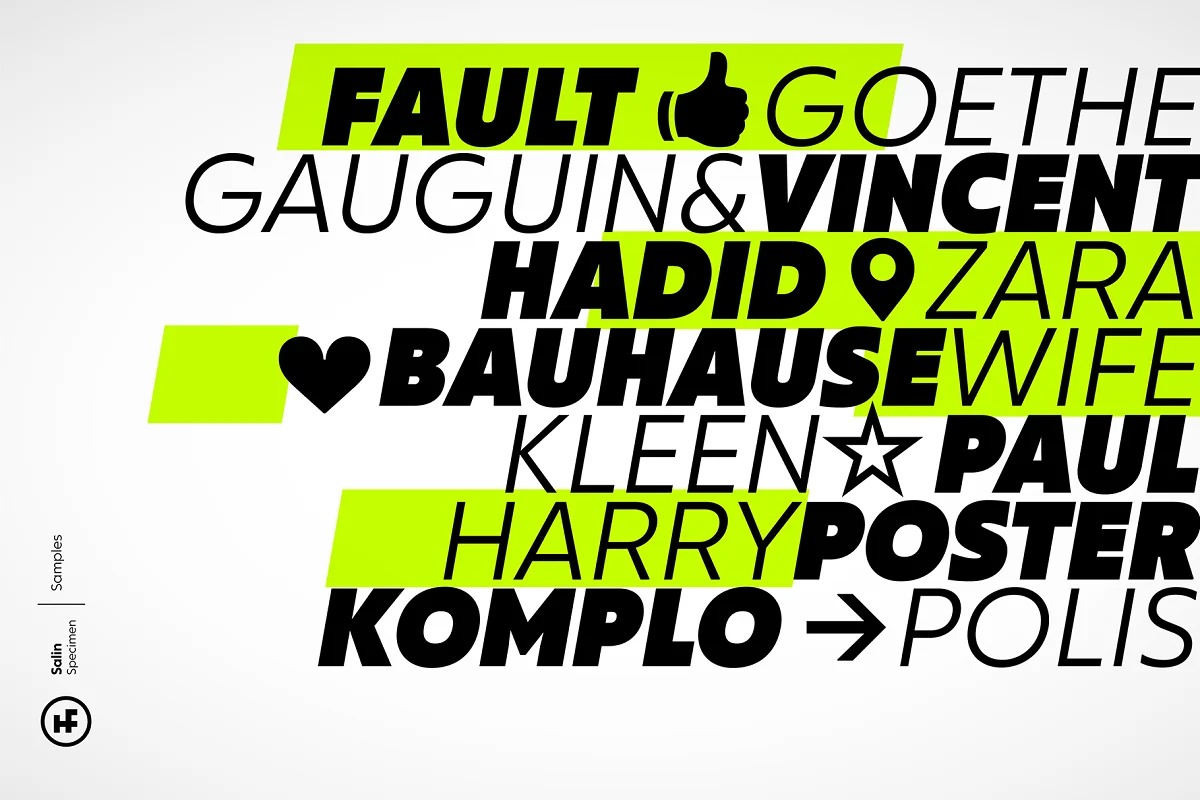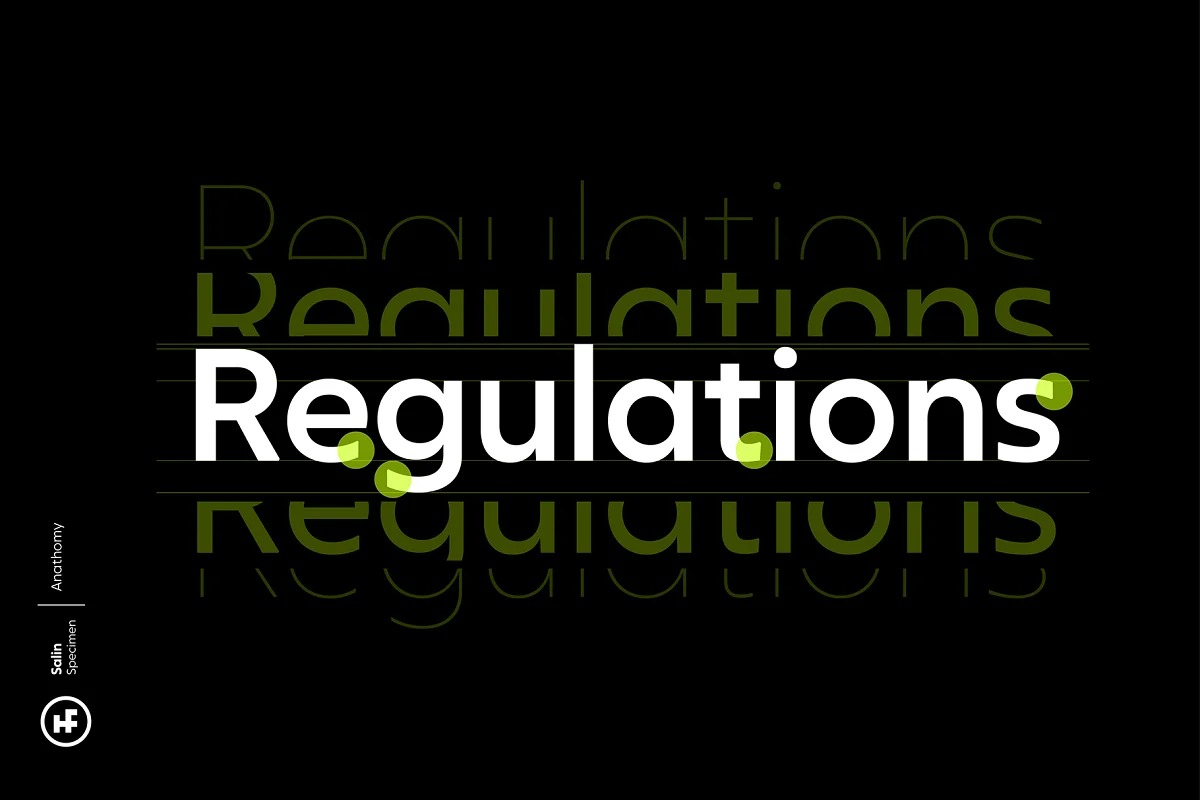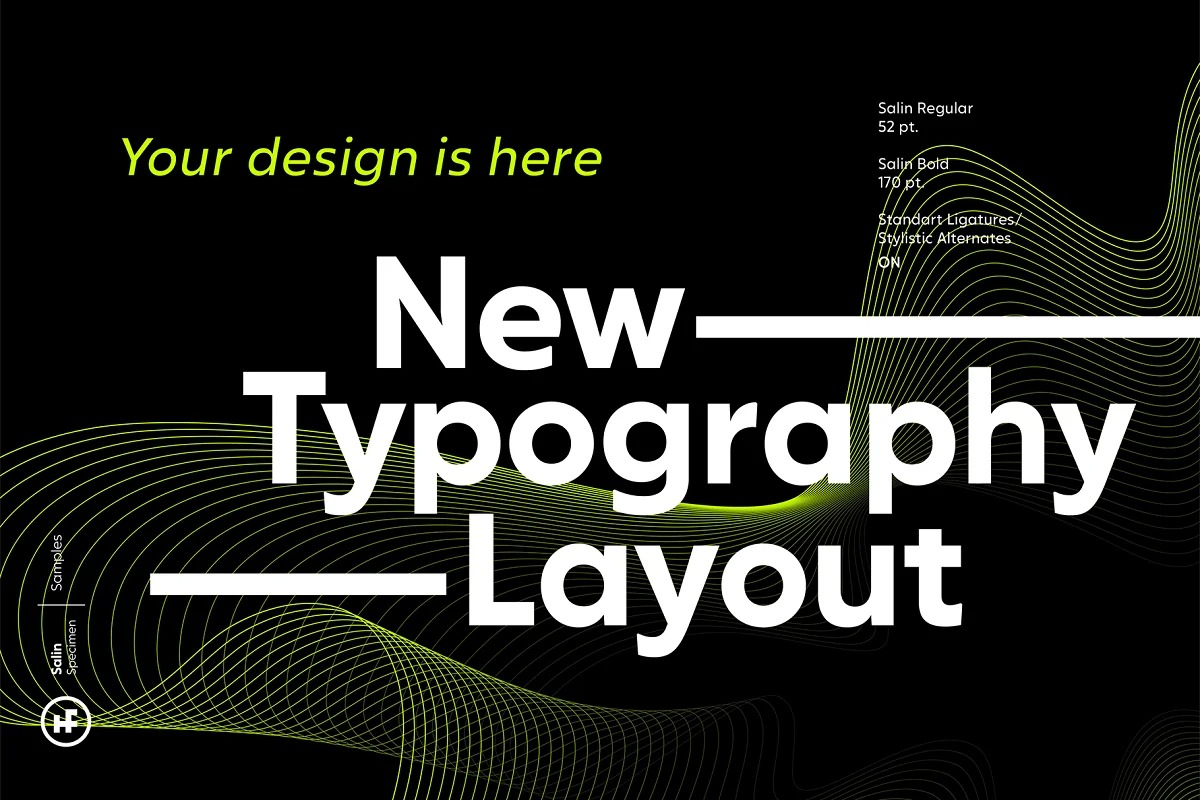
Salin Font Family
Salin Sans Serif Font
This font is a contemporary humanist sans serif with roots in calligraphy and incised letters. It’s designed and shared by Hurufatfont. Salin has totally 20 fonts with 10 weights and their appropriate italics. It contains rich opentype features. Includes extended language support, fractions, table figures, arrows, ligatures and more for each weight.
Ideal for corporate identity, poster, brochure, orientation signs, and all kinds of graphic design works. “Salin News” and “Salin News Italic” are specially made for long paragraph texts which are written with small sizes.